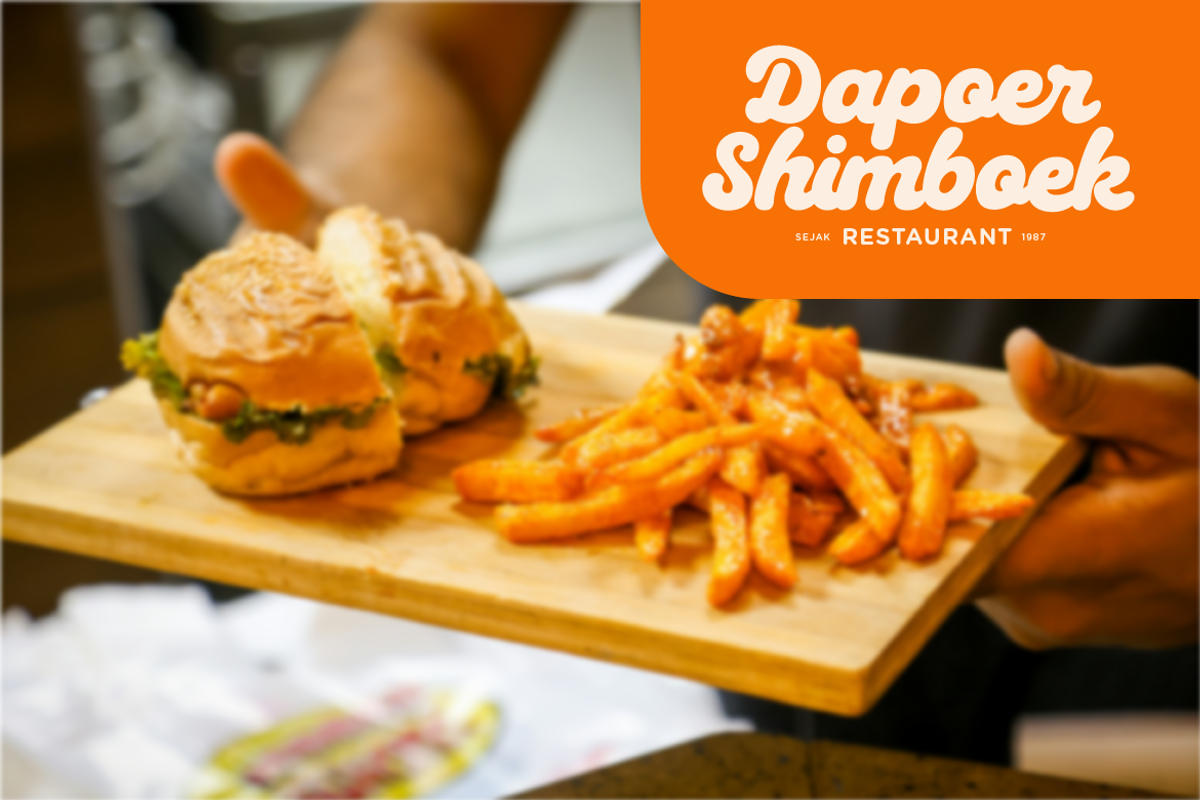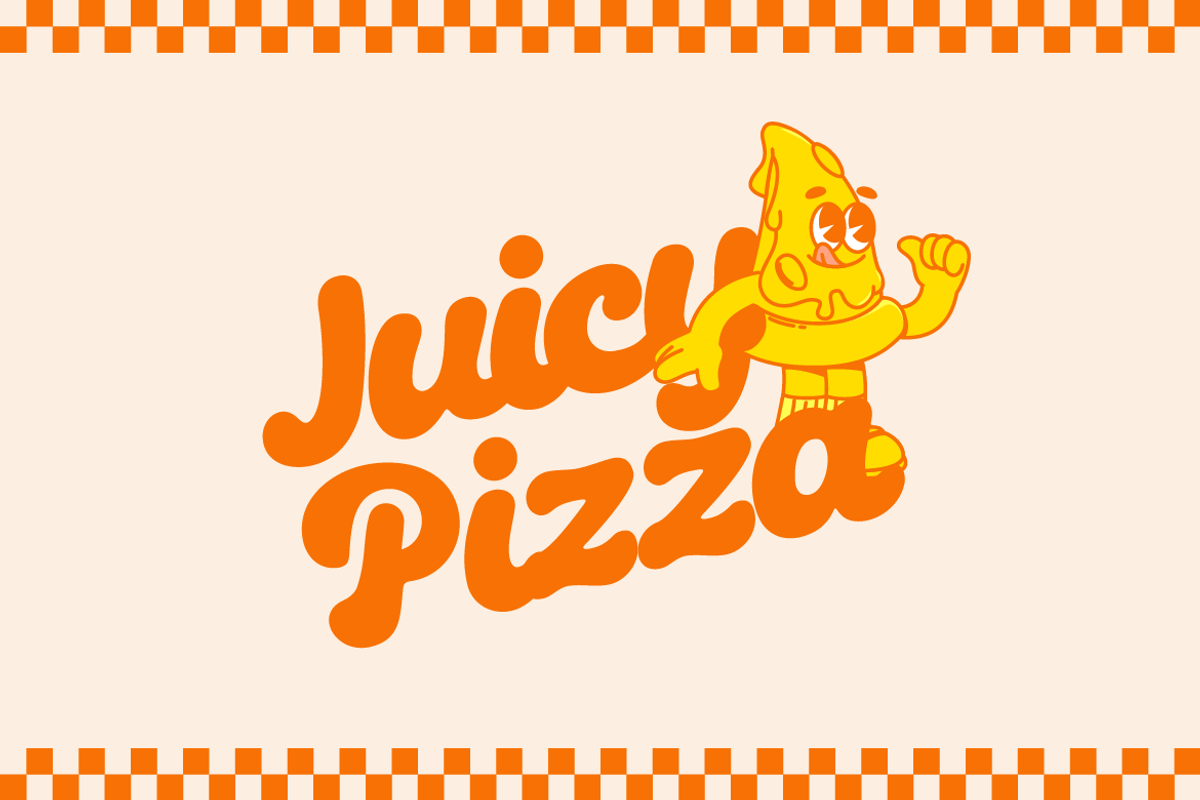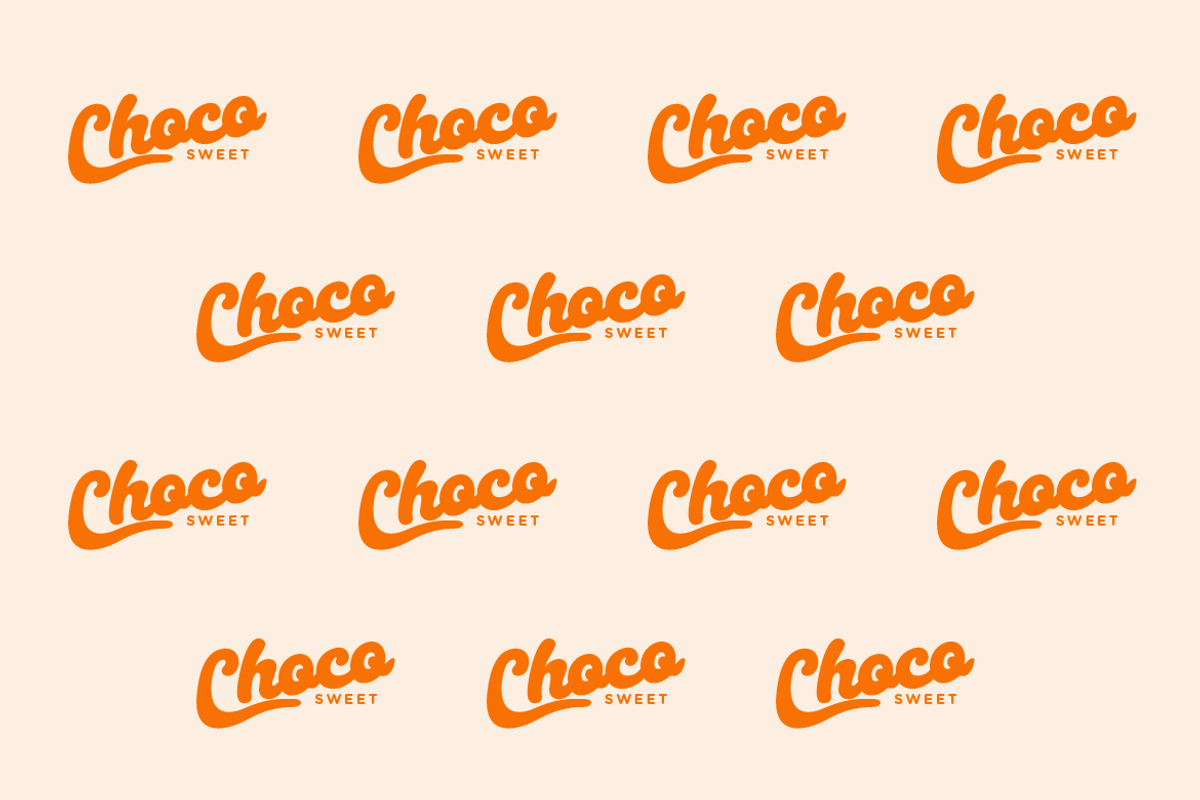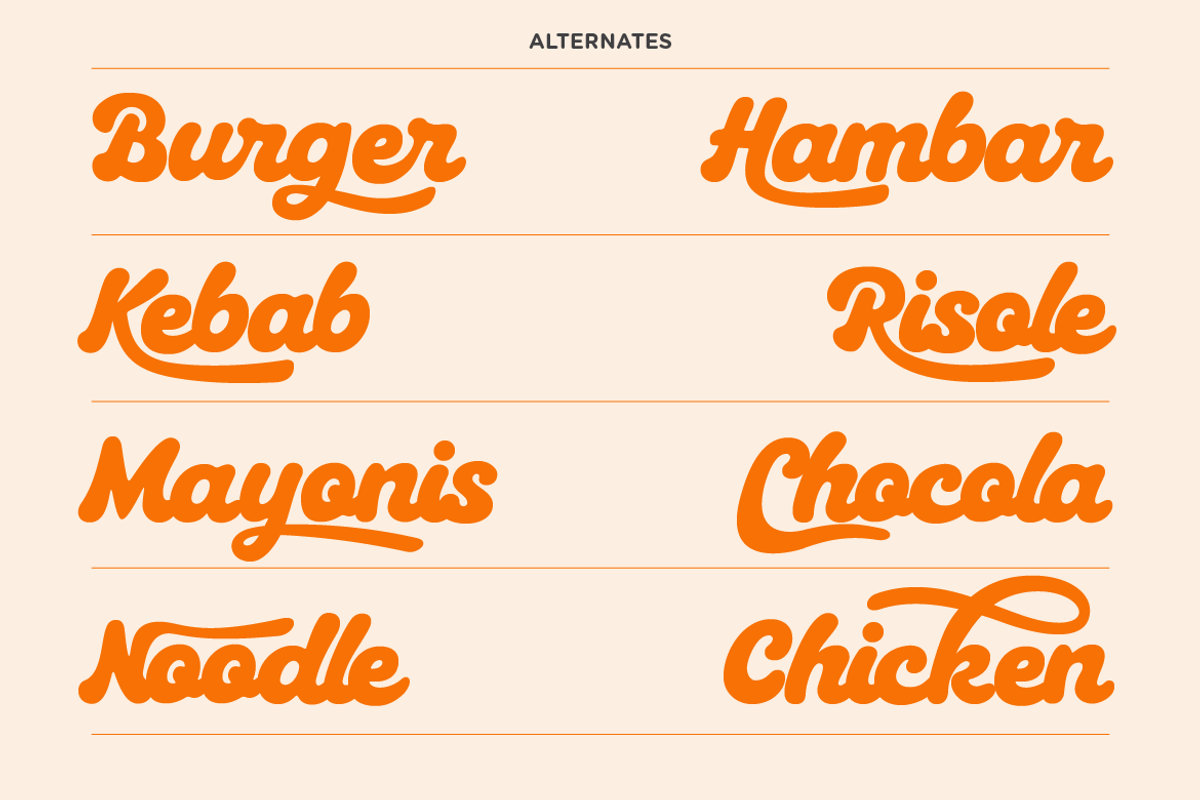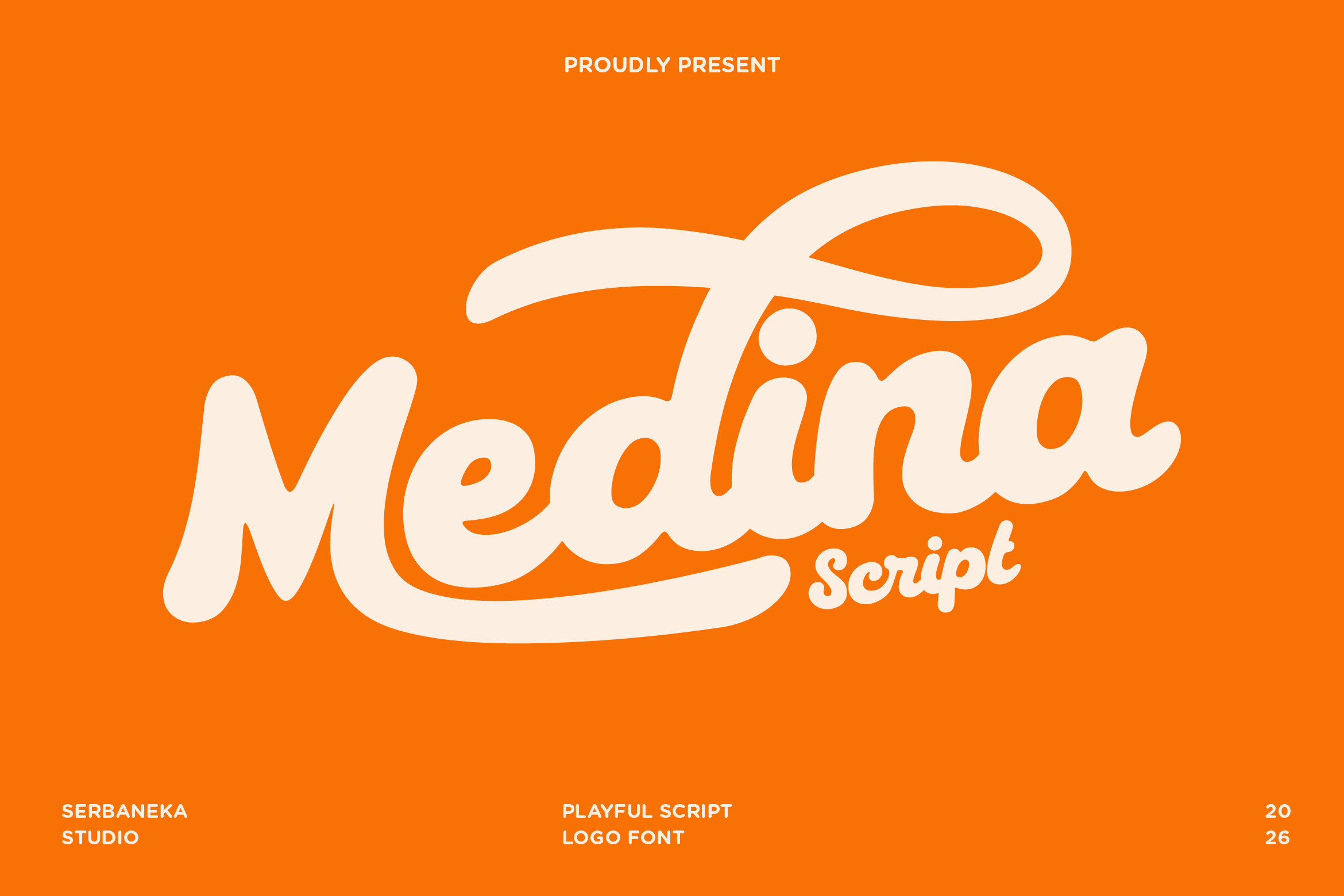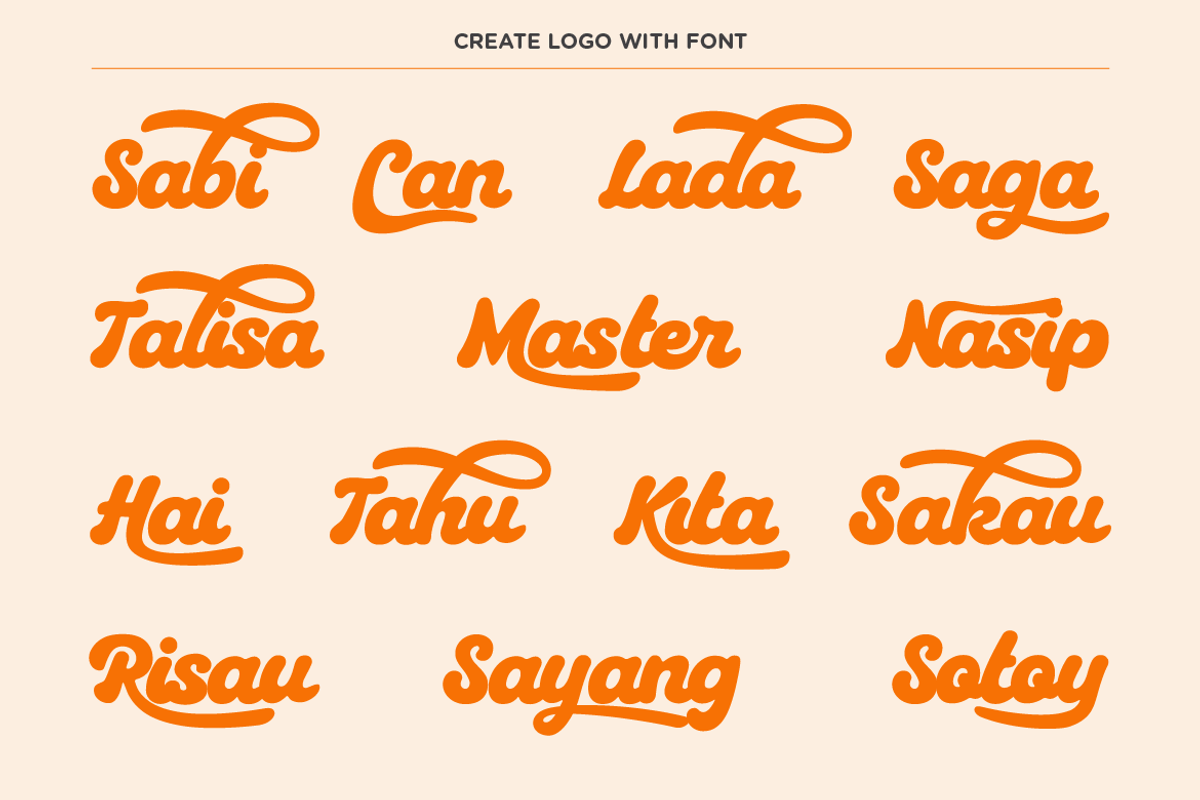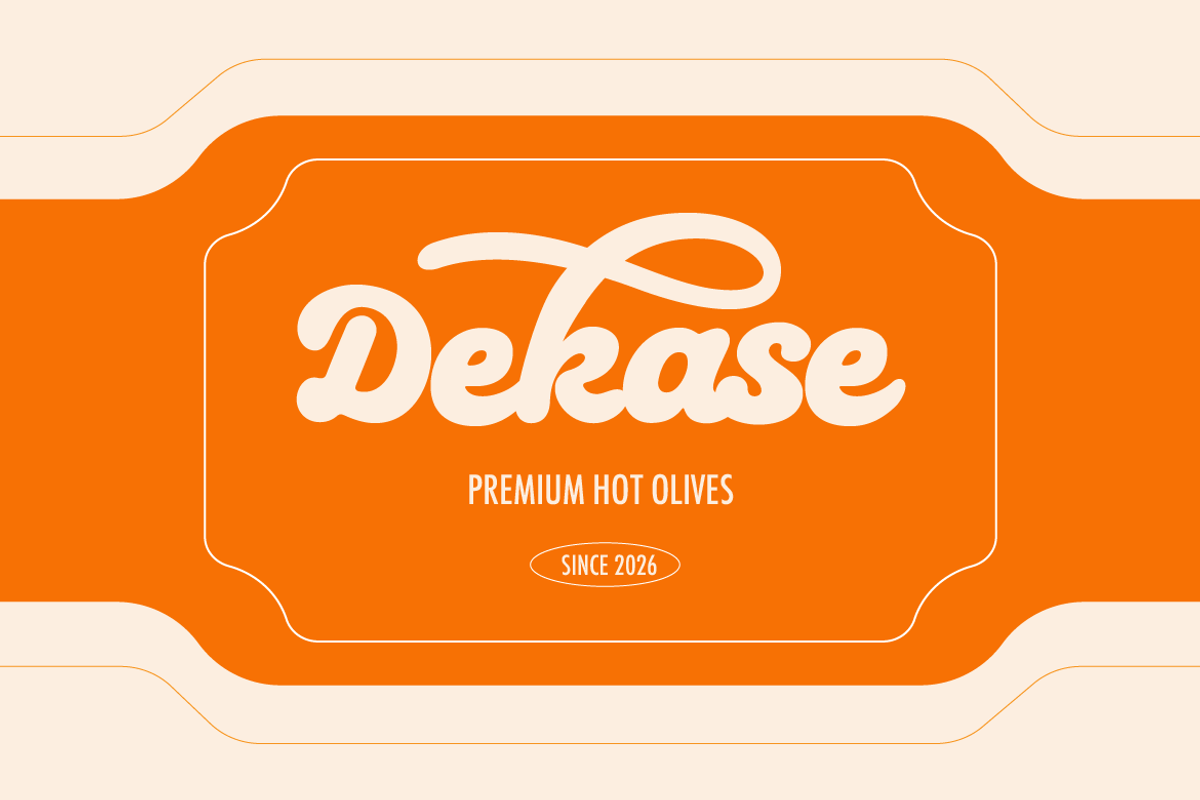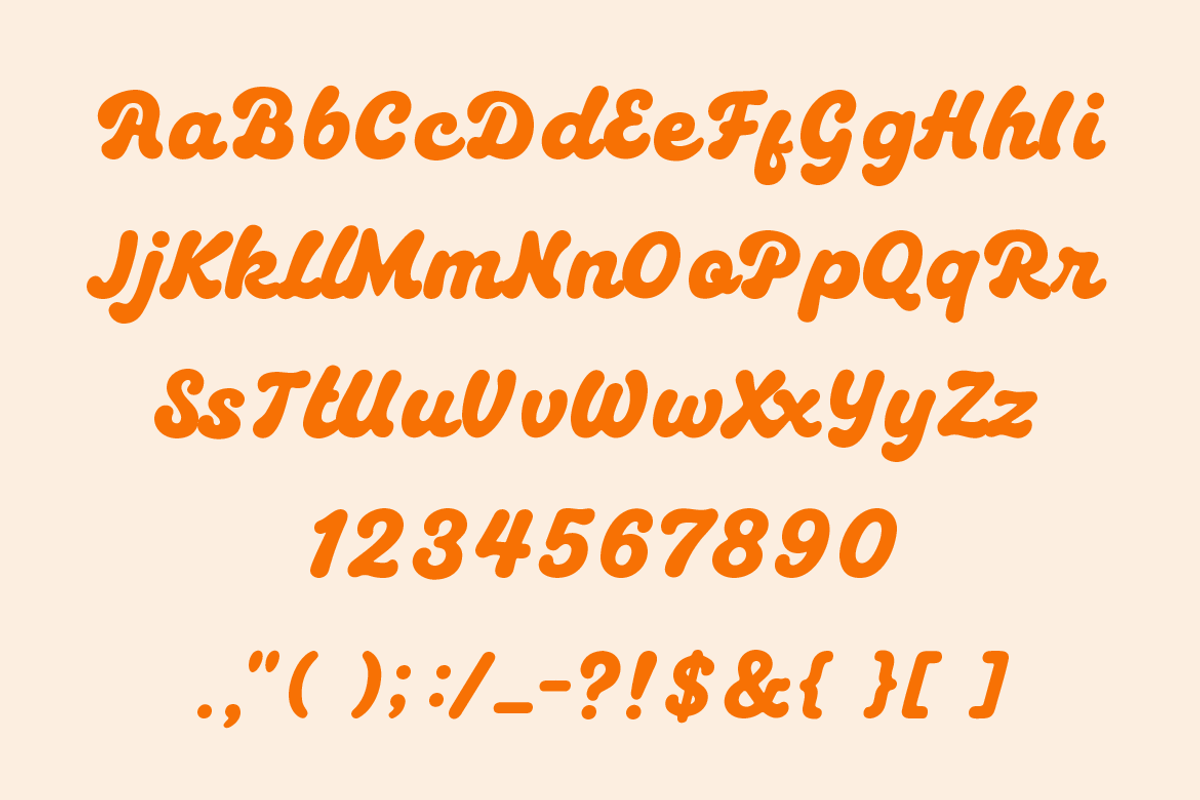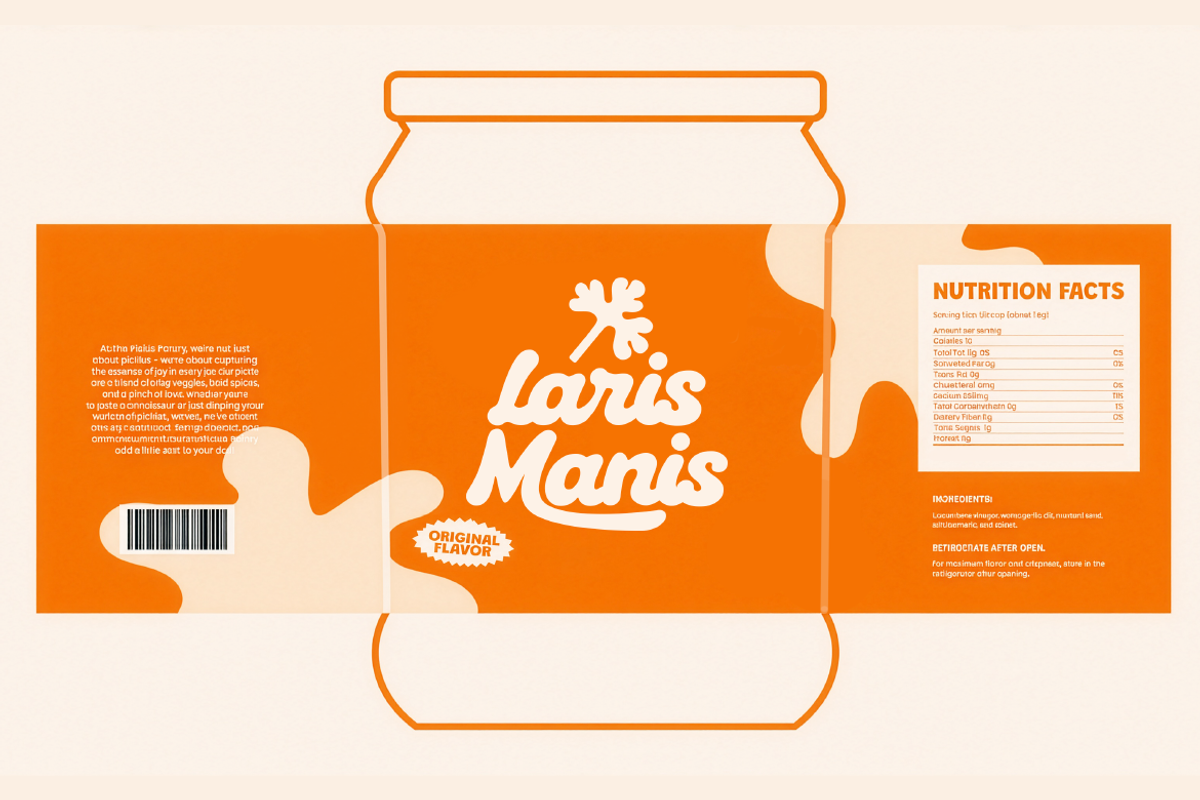
Medina Retro Food Script Font
Medina is a bold and flavorful script font inspired by vintage food branding, retro packaging, and handcrafted restaurant signage. With its smooth flowing connections, rounded letterforms, and playful swashes, Medina brings a warm and inviting personality to every design.
Designed to stand out on food packaging, café logos, restaurant menus, snack labels, and culinary branding, this font combines a nostalgic retro feel with modern readability. The carefully crafted curves and energetic script style make it perfect for creating memorable logos and eye-catching headlines that leave a lasting impression.
Whether you're designing for a burger shop, pizza brand, food truck, coffee house, bakery, or artisan product label, Medina adds a delicious touch of character and charm to your work.
Standard Ligatures
Smooth Script Style
Food Packaging Design
Restaurant Branding
Café & Coffee Shop Logos
Fast Food Branding
Burger & Pizza Shop Identity
Bakery Labels & Packaging
Snack Product Design
Vintage Food Posters
Food Truck Branding
Menu Design
Social Media Promotions
Product Labels & Stickers